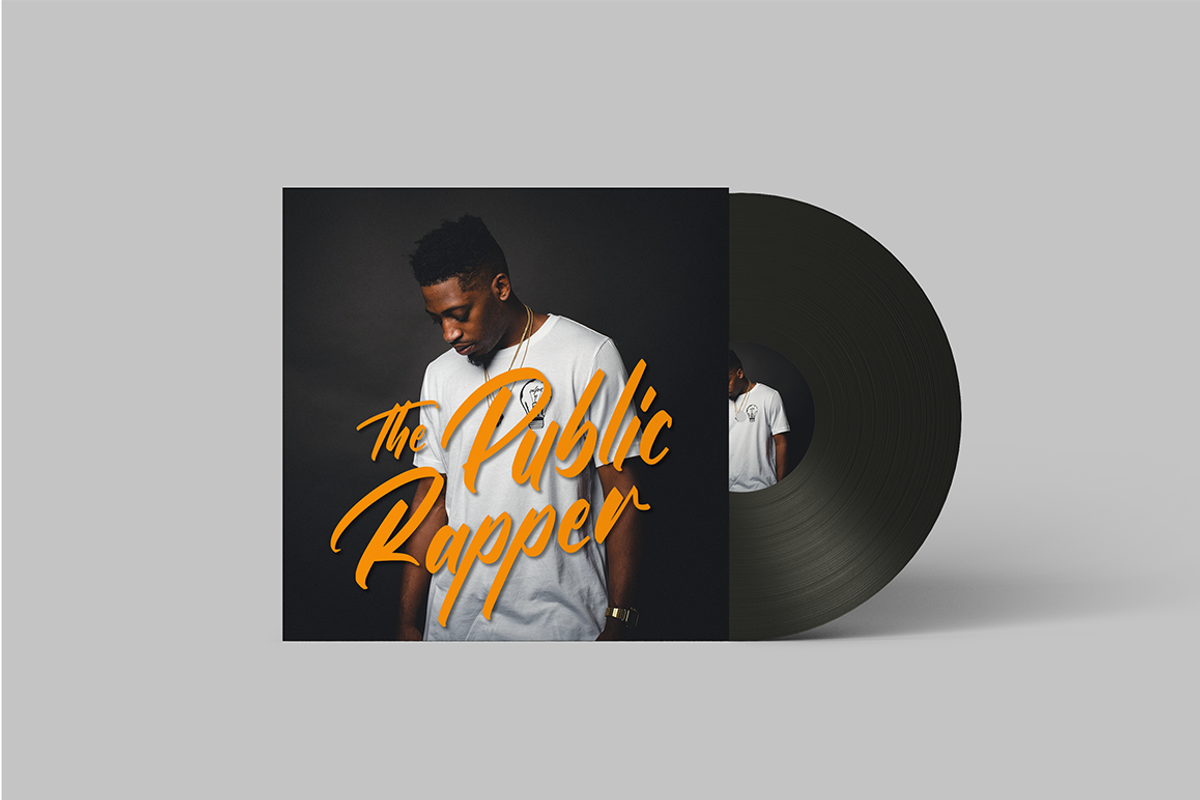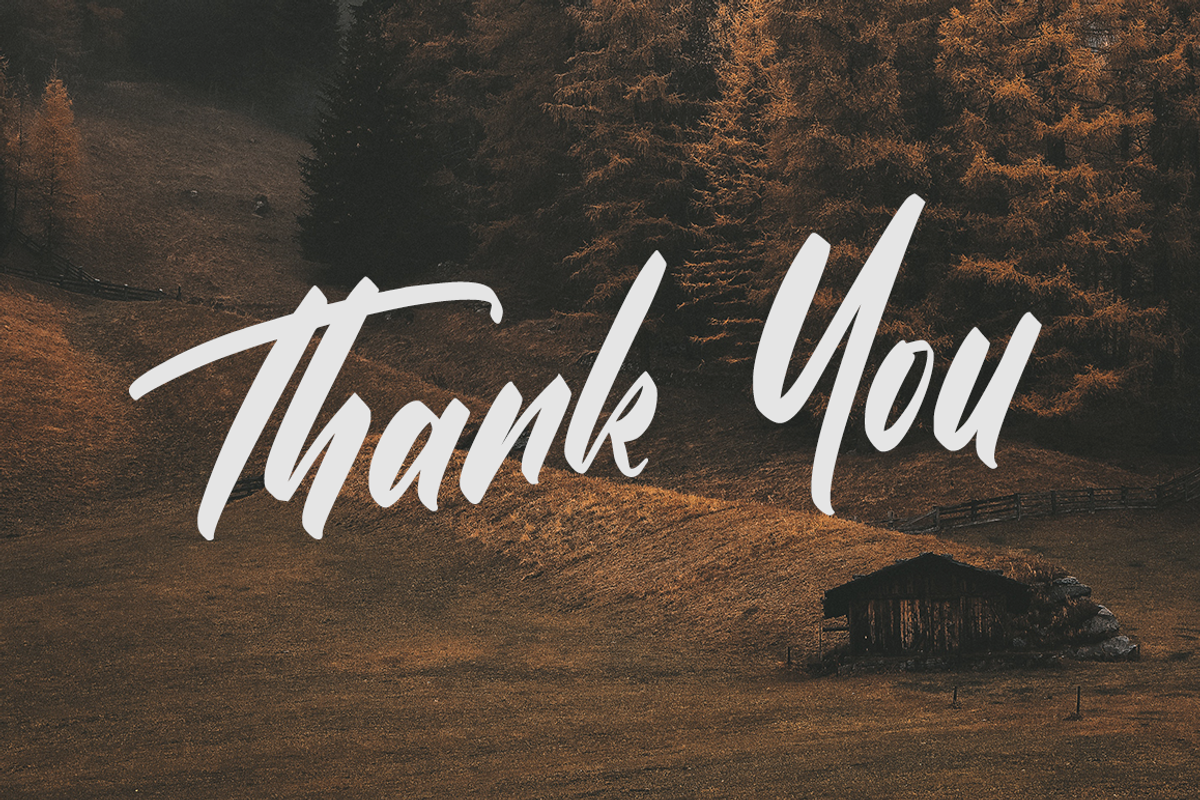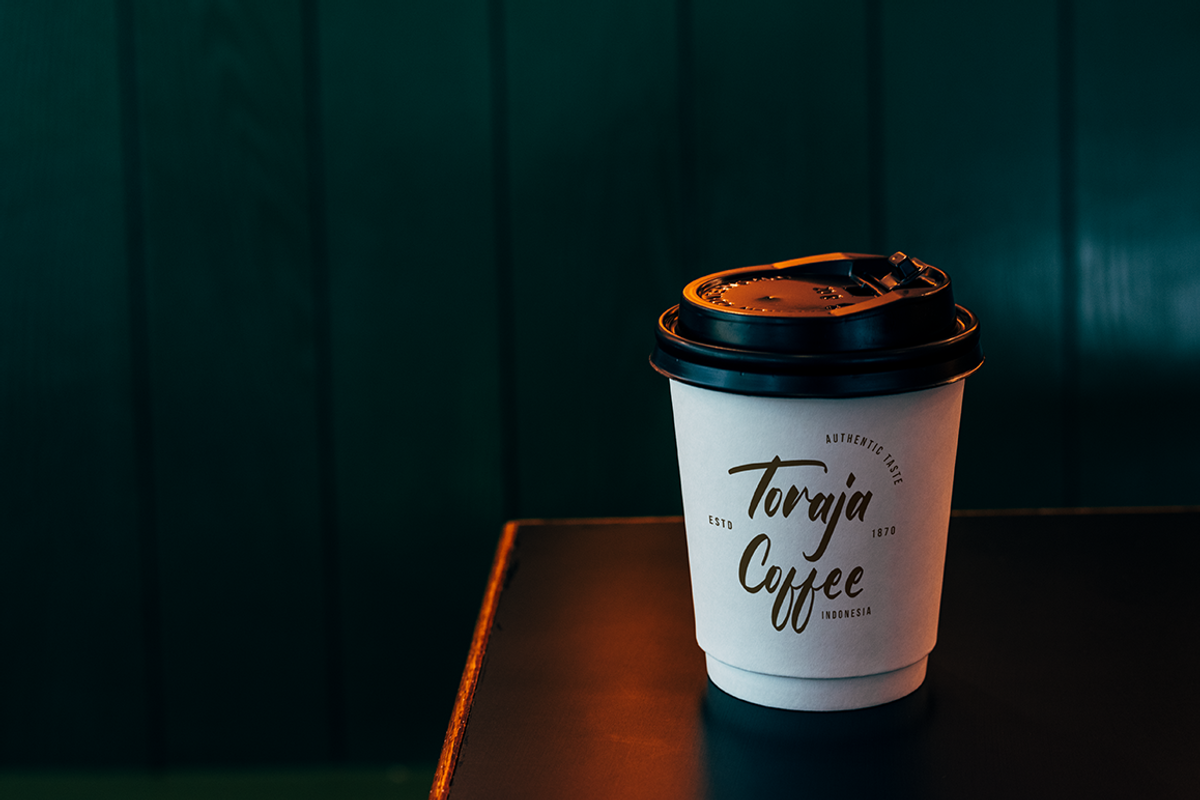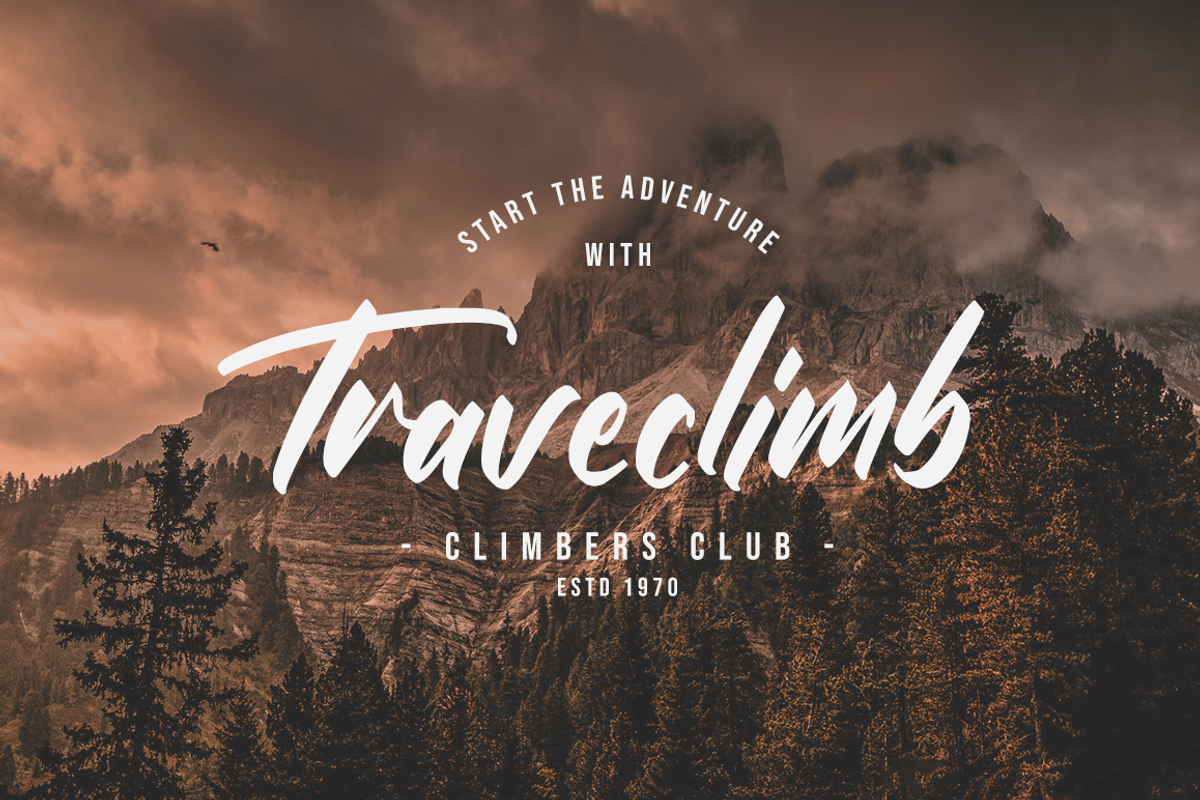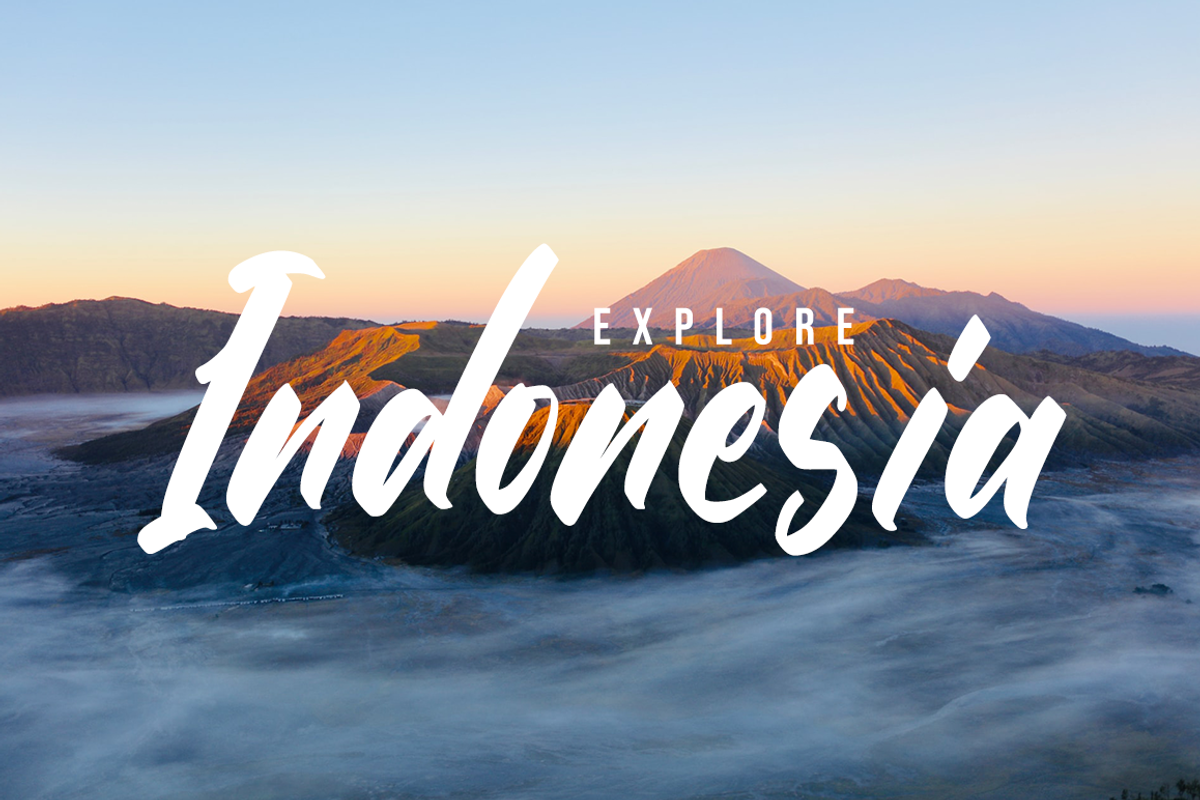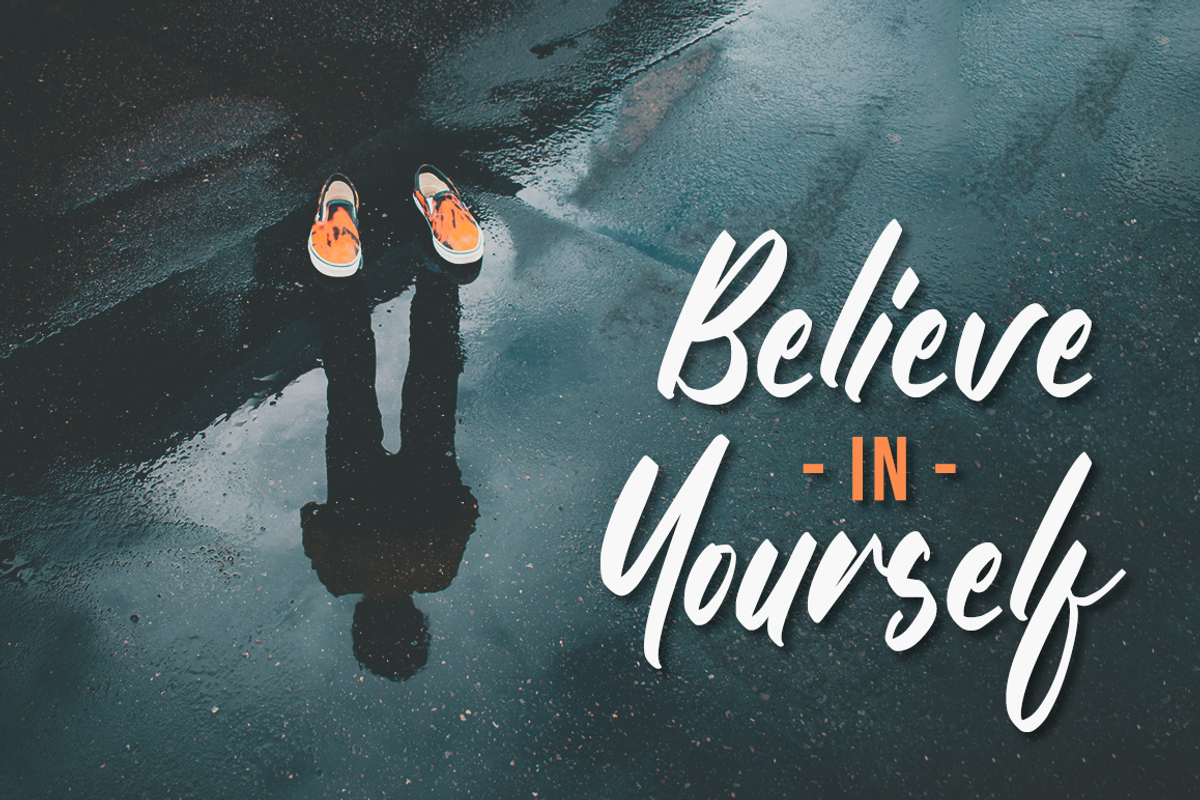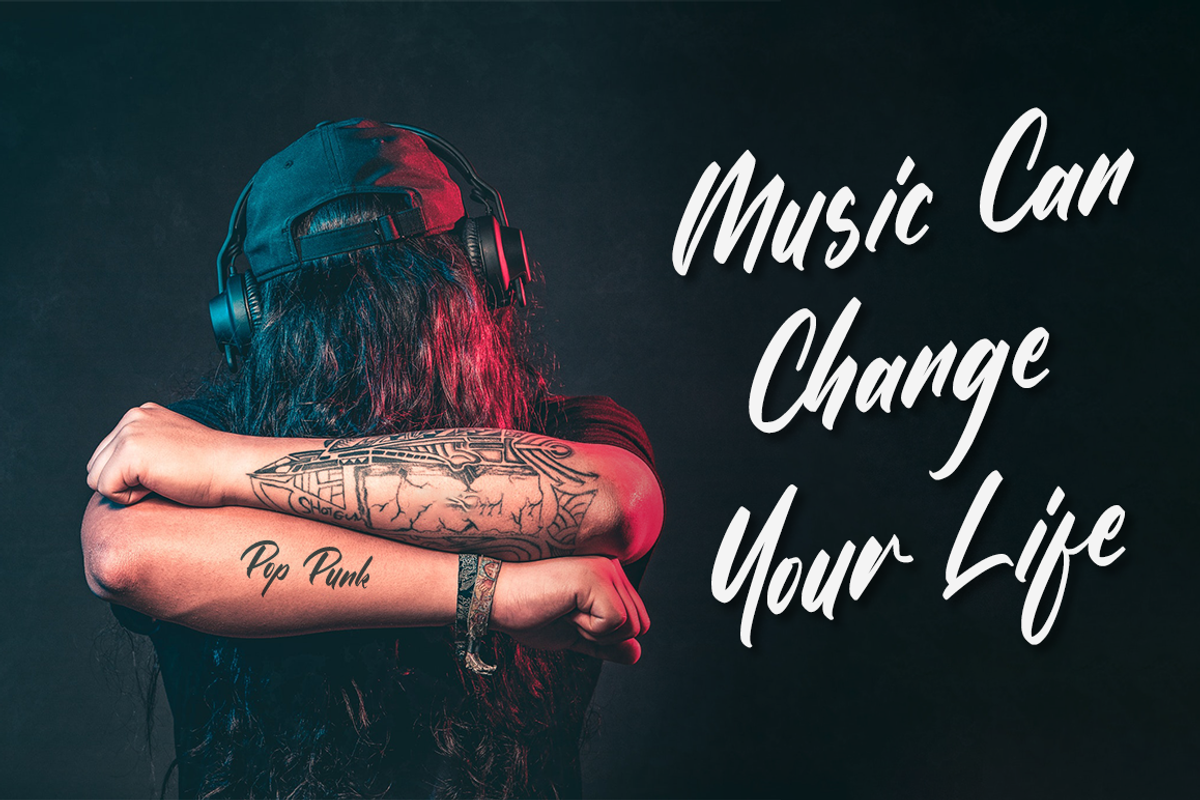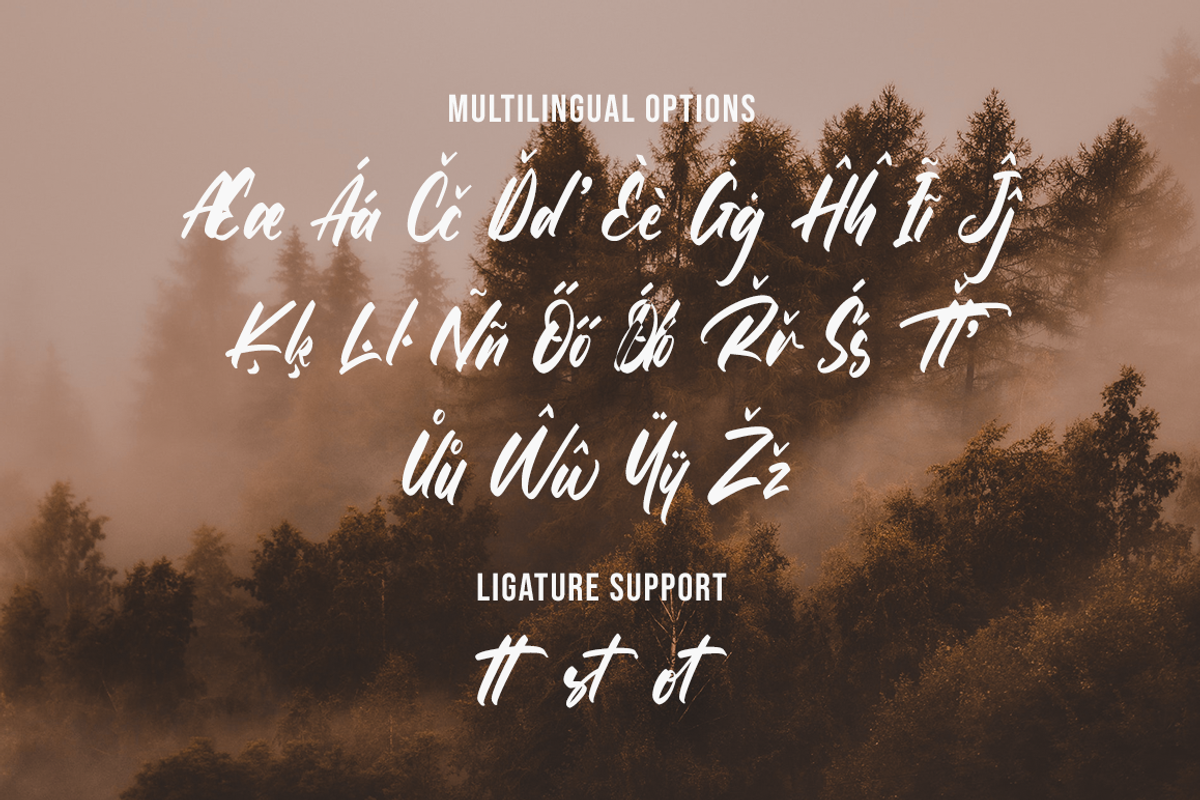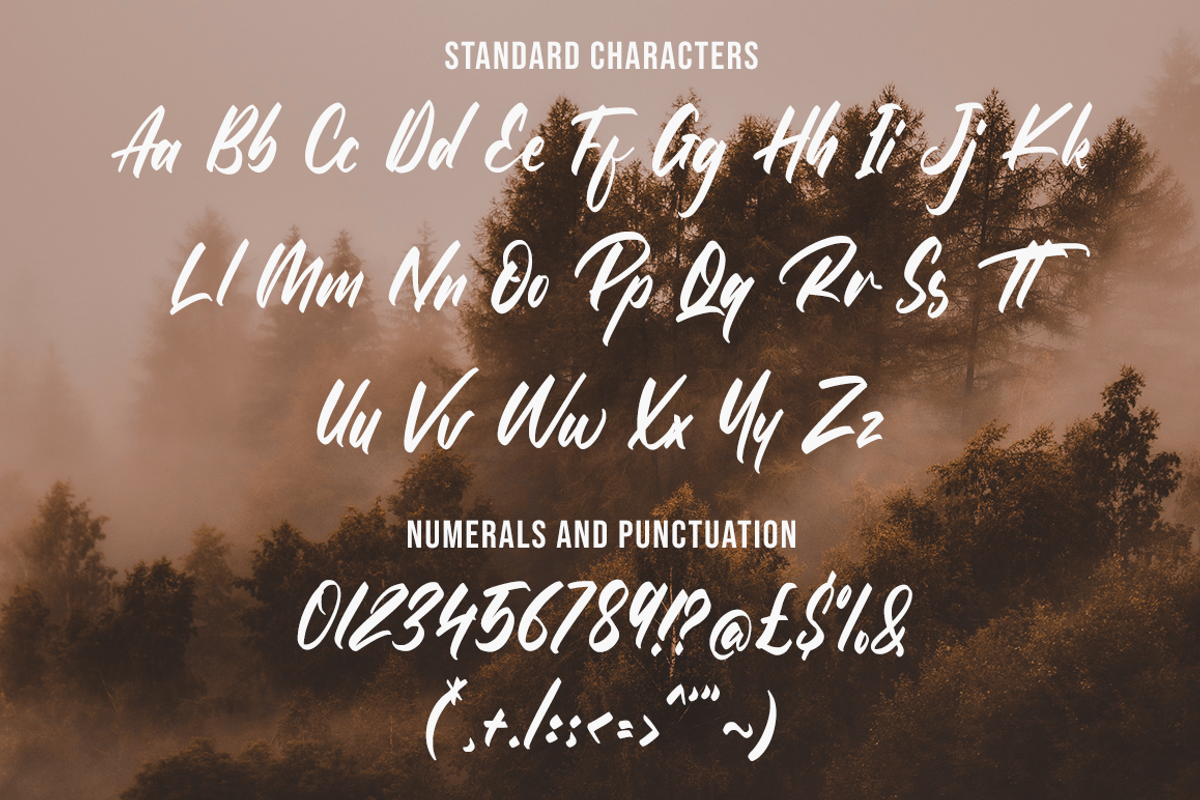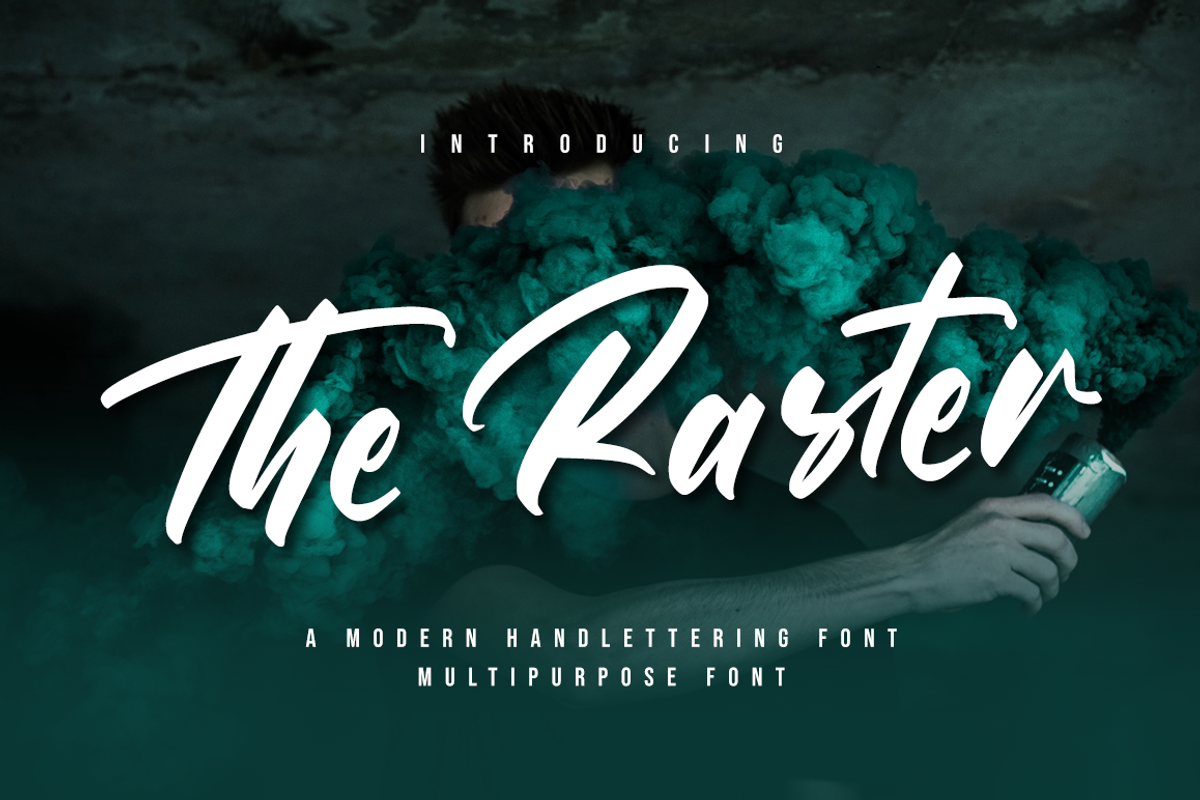
The Raster Font
The Raster is a beautiful light handwritten font with a unique feel and a stunning impact. It will add a luxury spark to any design project that you wish to create!